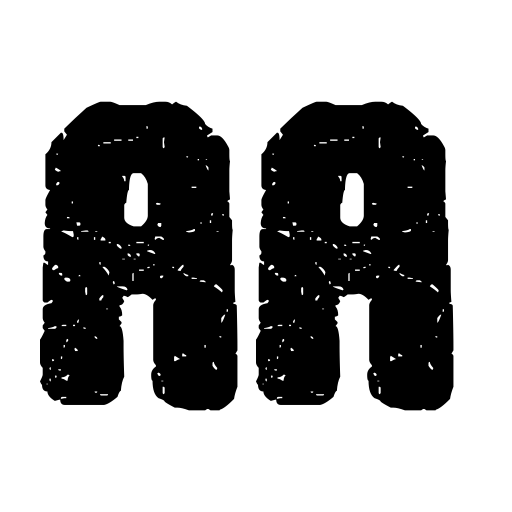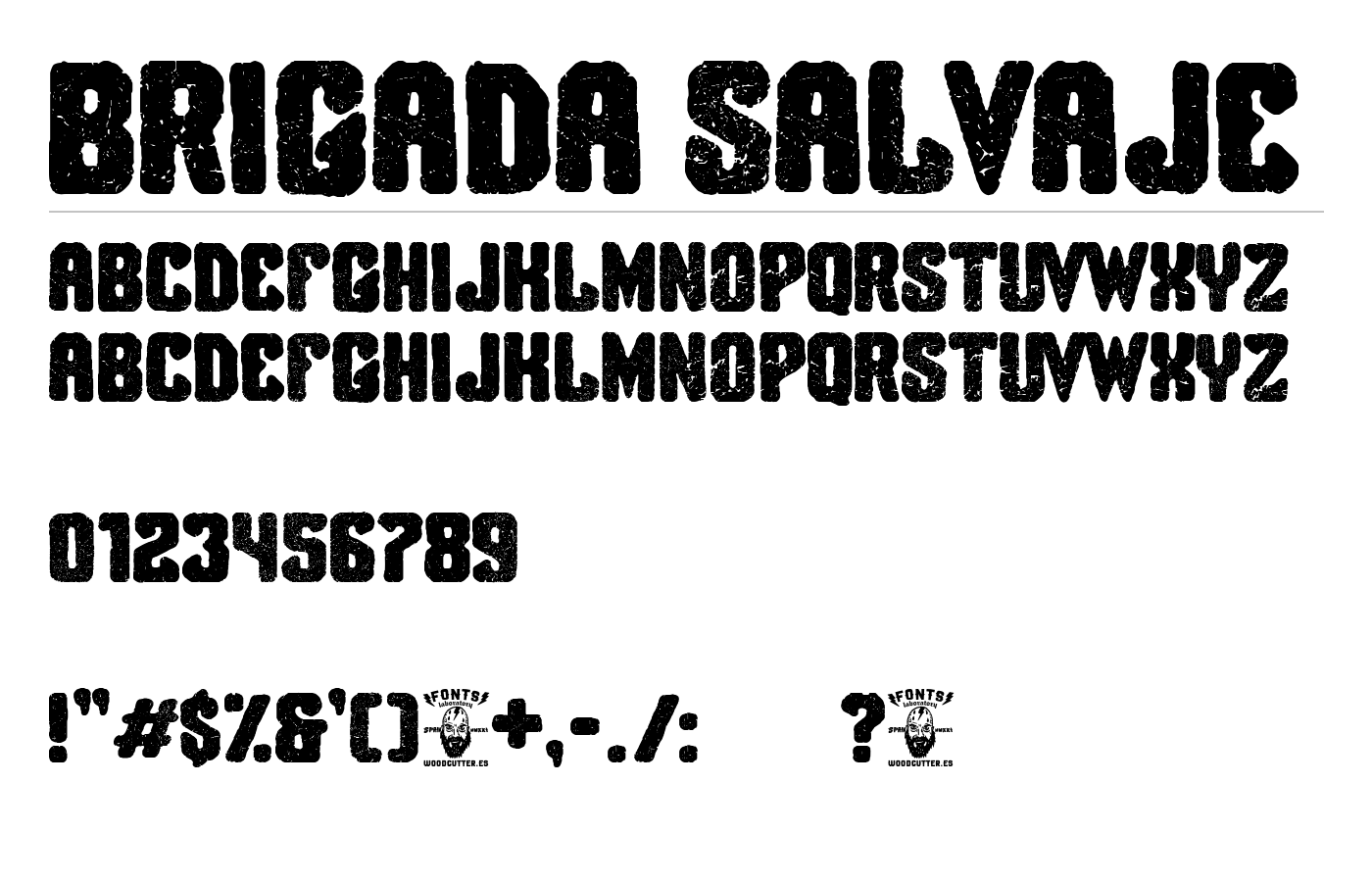
Brigada Salvaje is a bold, condensed sans serif font with a distressed, textured appearance that gives it a rugged, vintage feel. Its rounded corners and uneven surface evoke a handcrafted or stamped look, making it ideal for designs wanting a bold, tough, and authentic personality. This font works well in branding, posters, or headlines where a strong, raw impact is desired.
Brigada Salvaje Font
About Brigada Salvaje Font